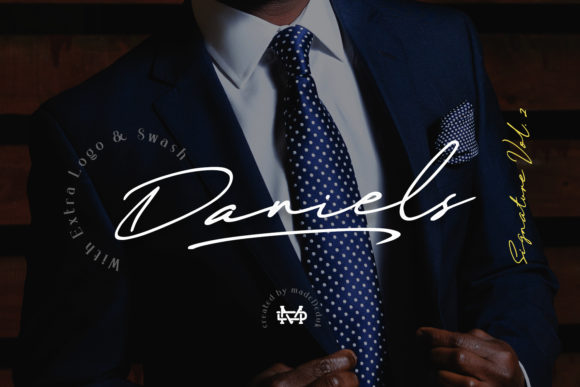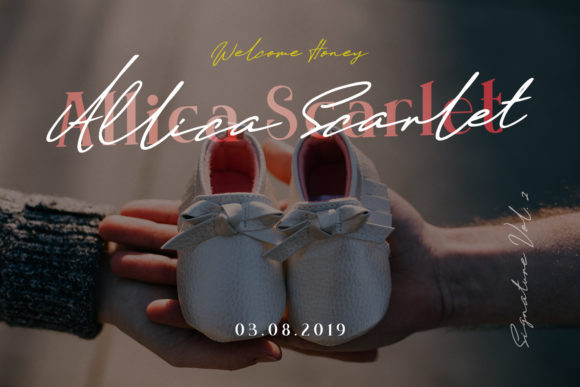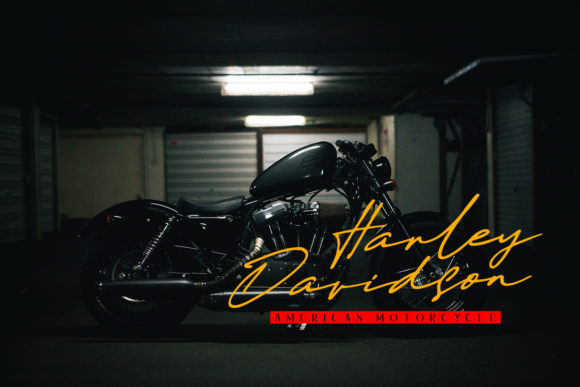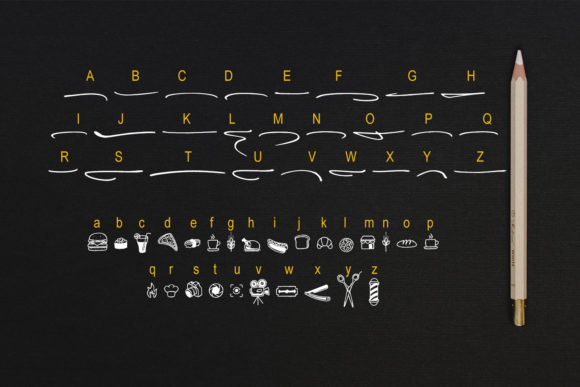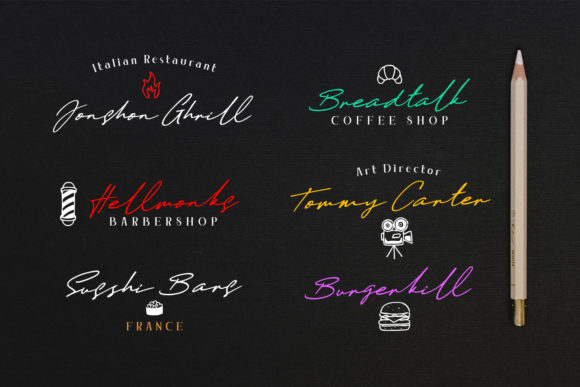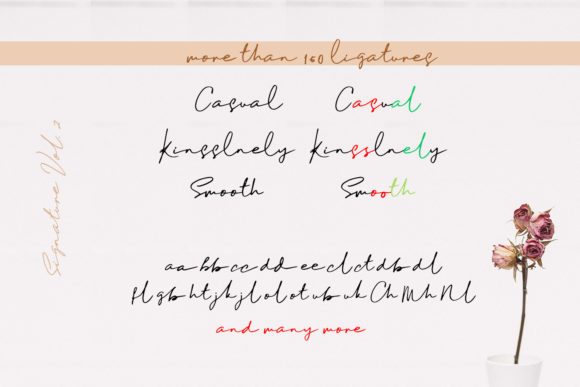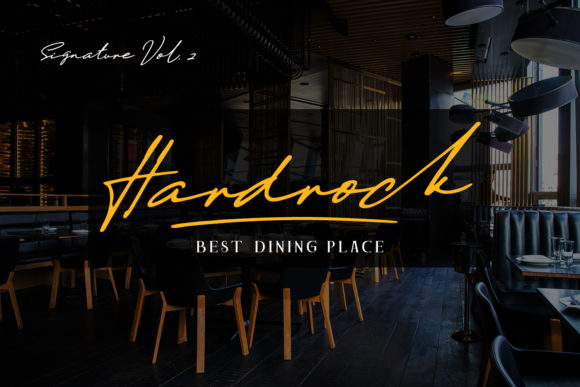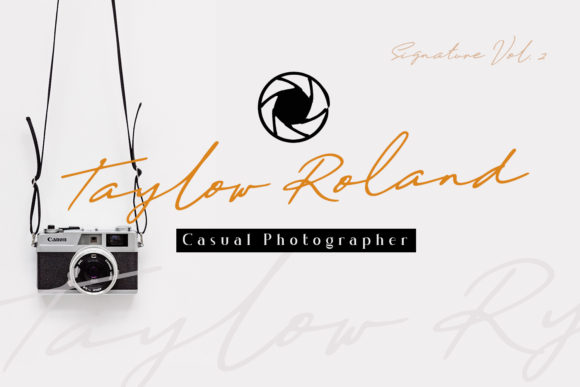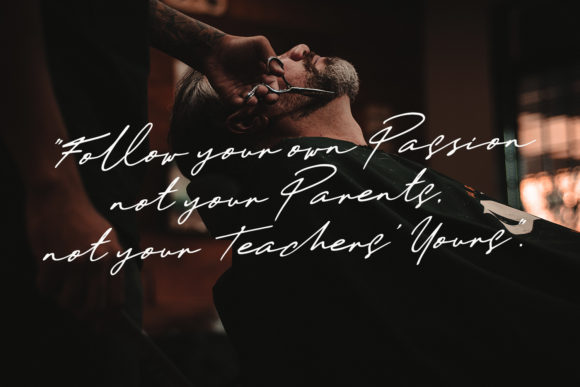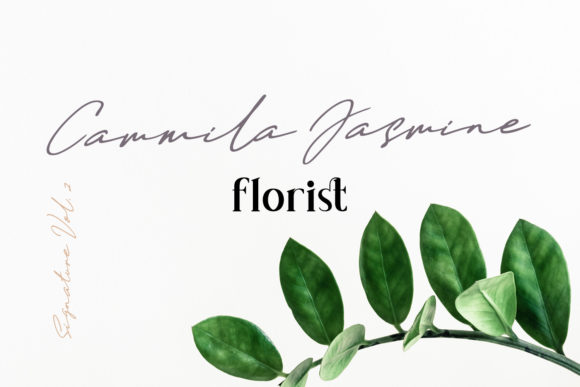
Daniels Font
About Daniels Font
Daniels is a gorgeous signature font. VOL.2. Daniels includes more than 170 ligatures and it will add a natural handmade style to your designs. It is perfect for poster designs, book covers, merchandise, fashion campaigns, newsletters, advertising, magazines, greeting cards, album covers, and more!